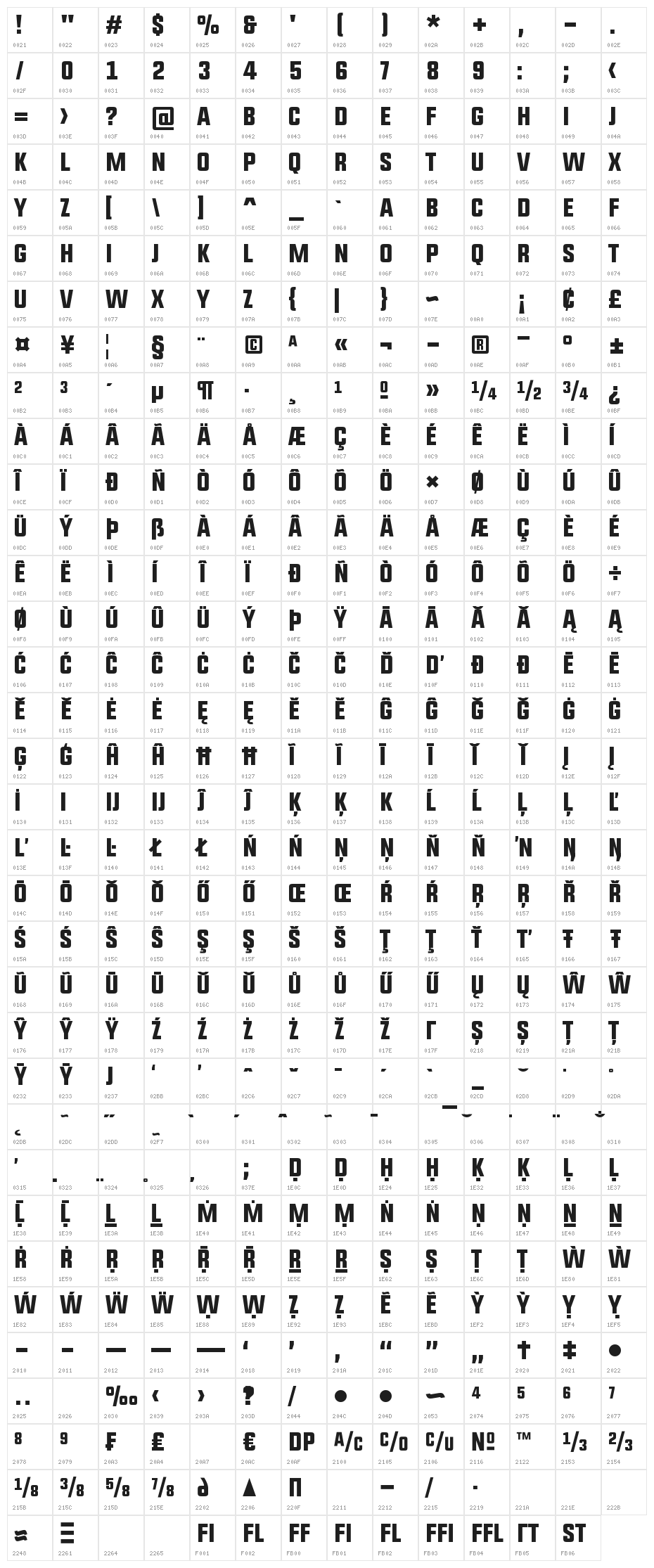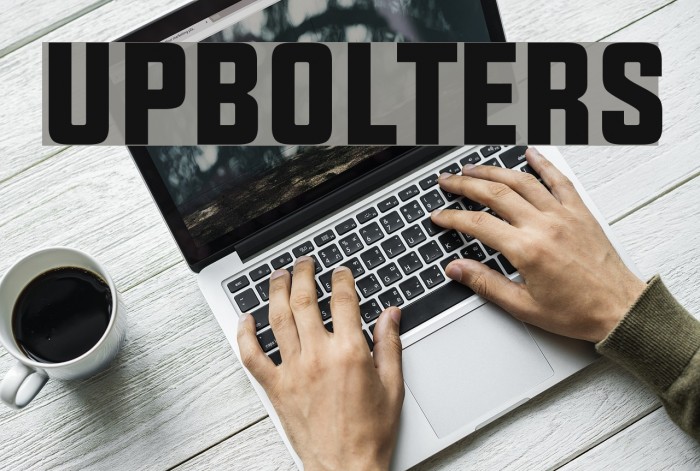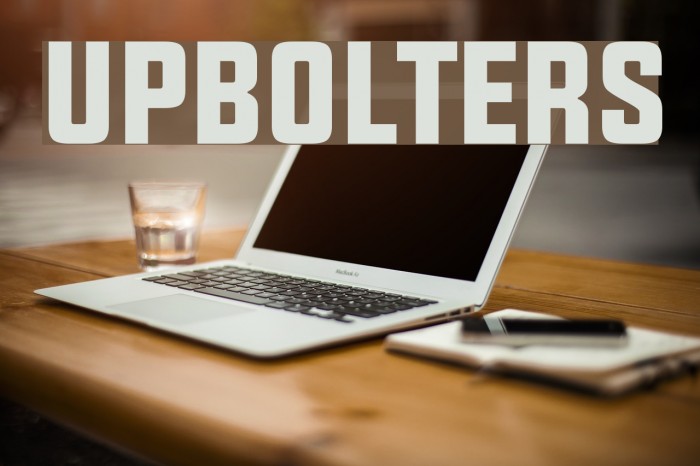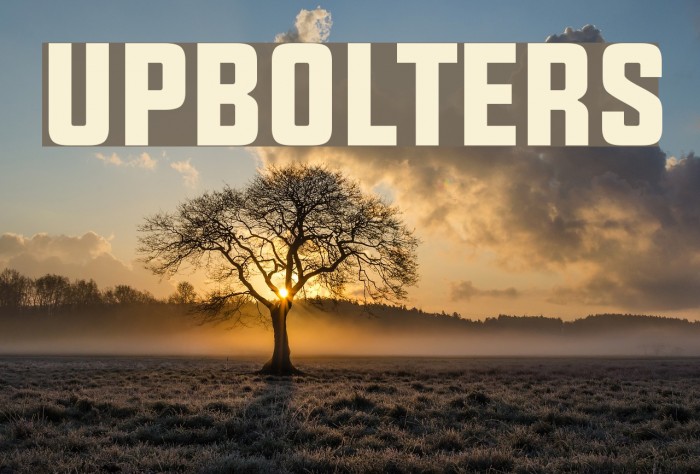
UPBOLTERS Font
UPBOLTERS Description
This font is a bold, impactful typeface with a strong presence. It features uppercase and lowercase letters, numbers, and a variety of special characters. The design is characterized by thick, uniform strokes that convey a sense of strength and stability. The letters are tightly spaced, enhancing the boldness of the font. Its geometric shapes and clean lines make it suitable for modern and contemporary designs. The font's high contrast between the thick strokes and the negative space ensures excellent readability, even at smaller sizes. It is ideal for making a statement in headlines, posters, and branding materials.
| Proposed Projects | Ideal for headlines, posters, branding, and any project requiring a strong visual impact. |